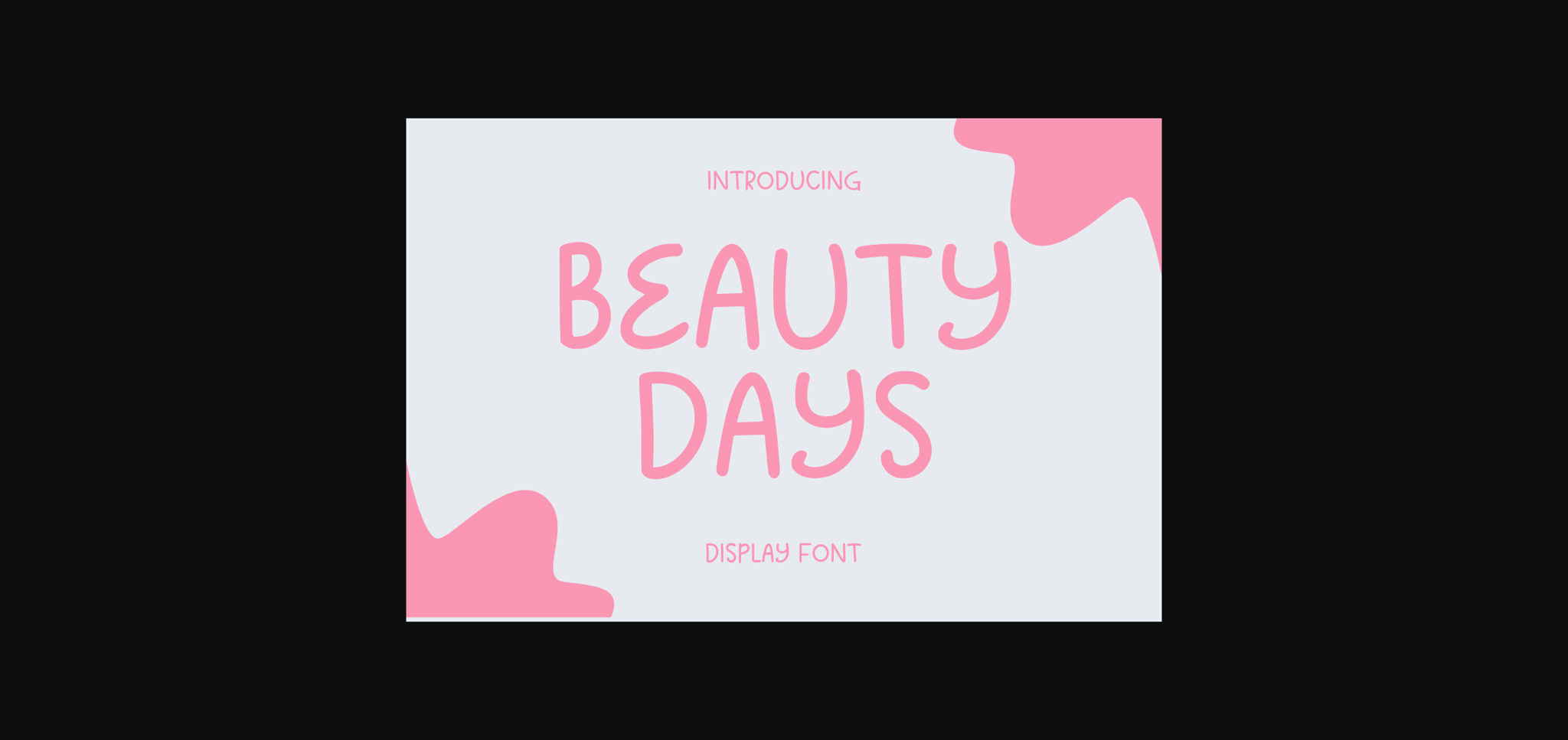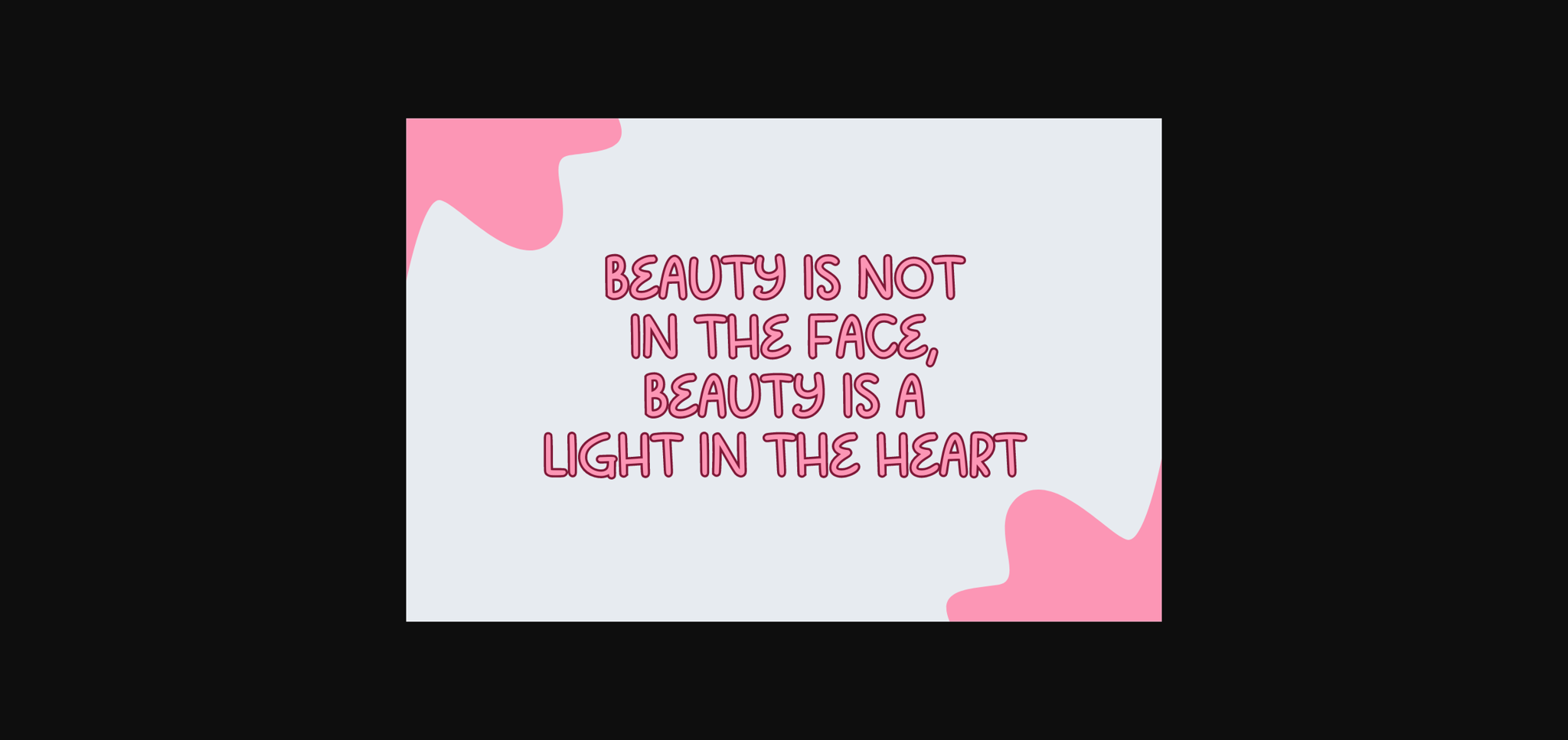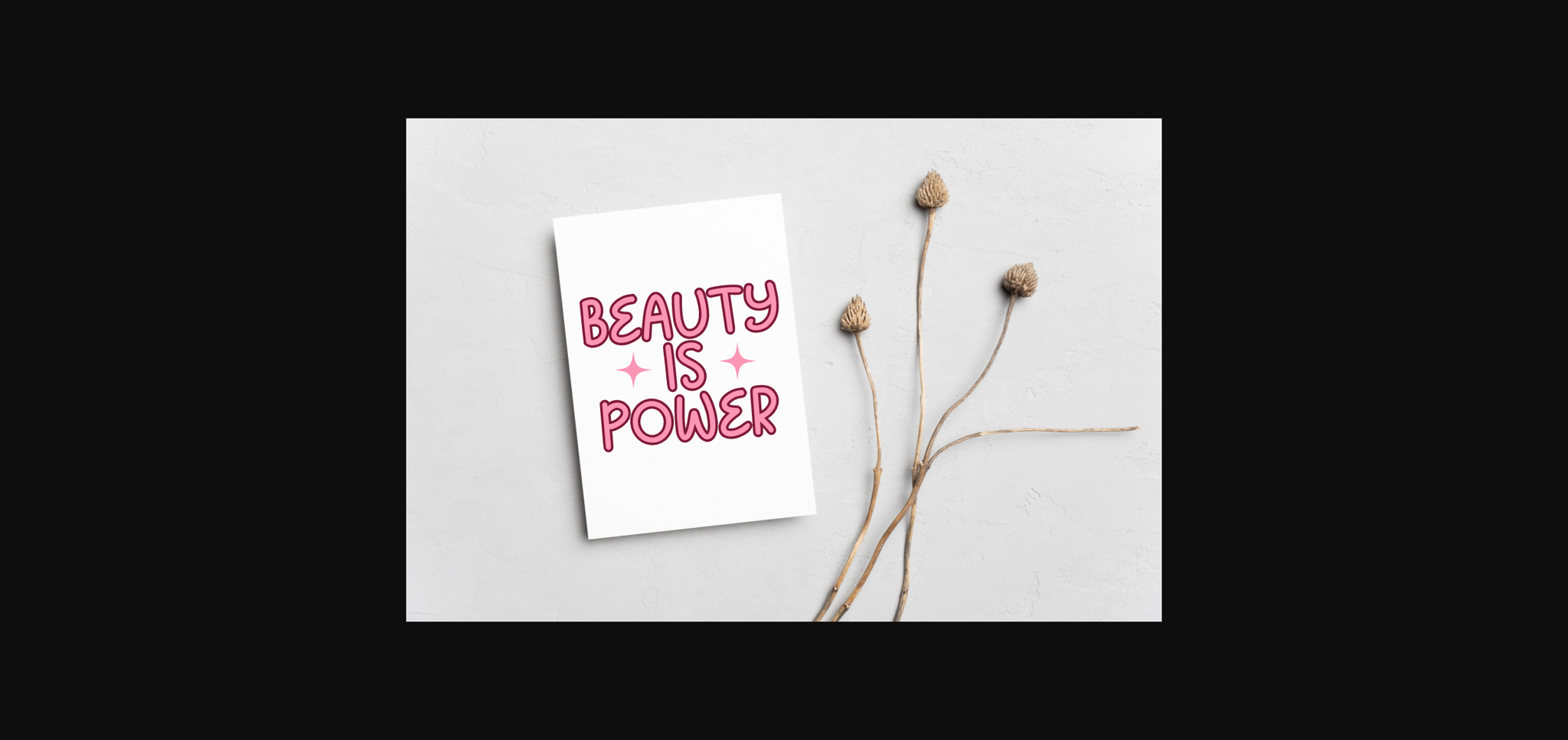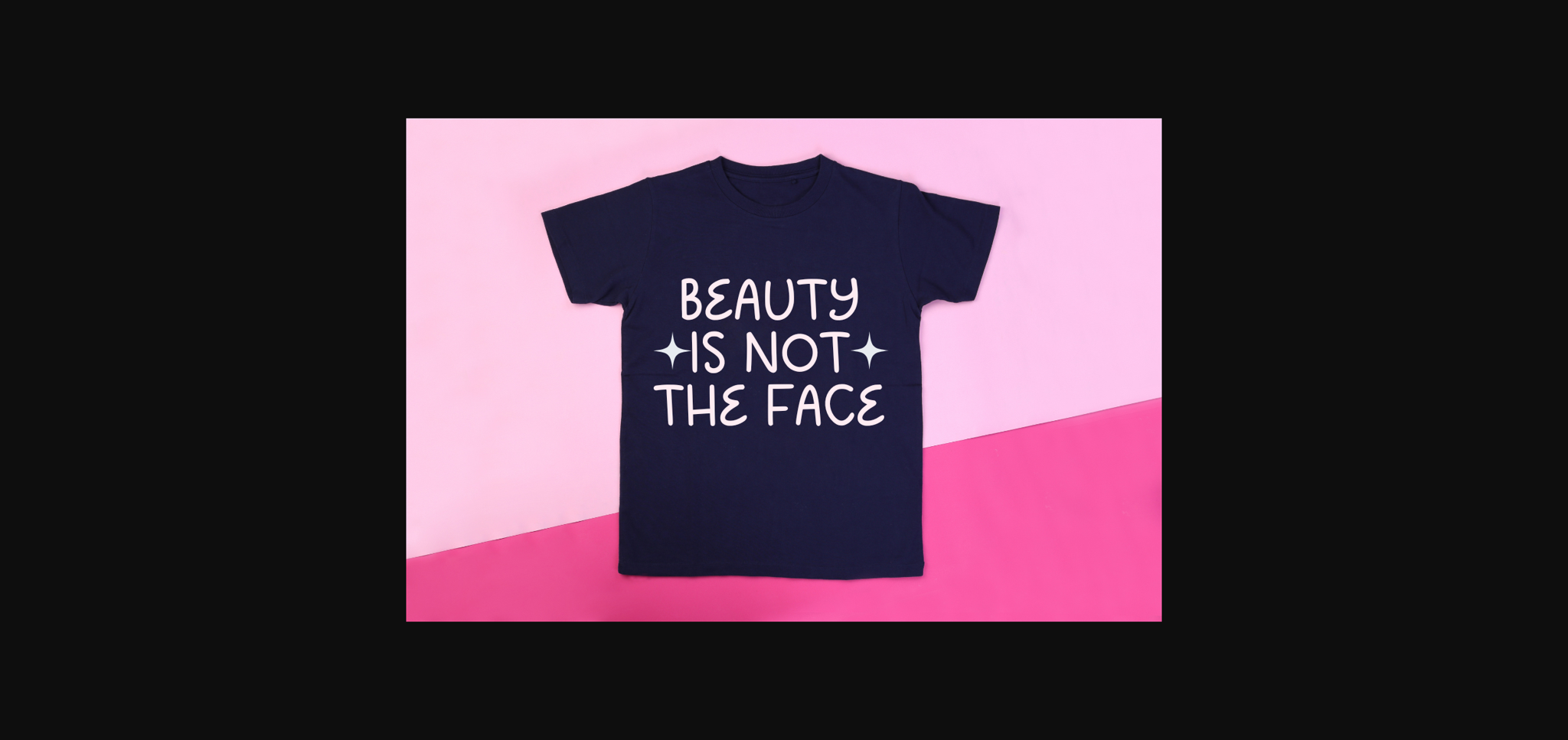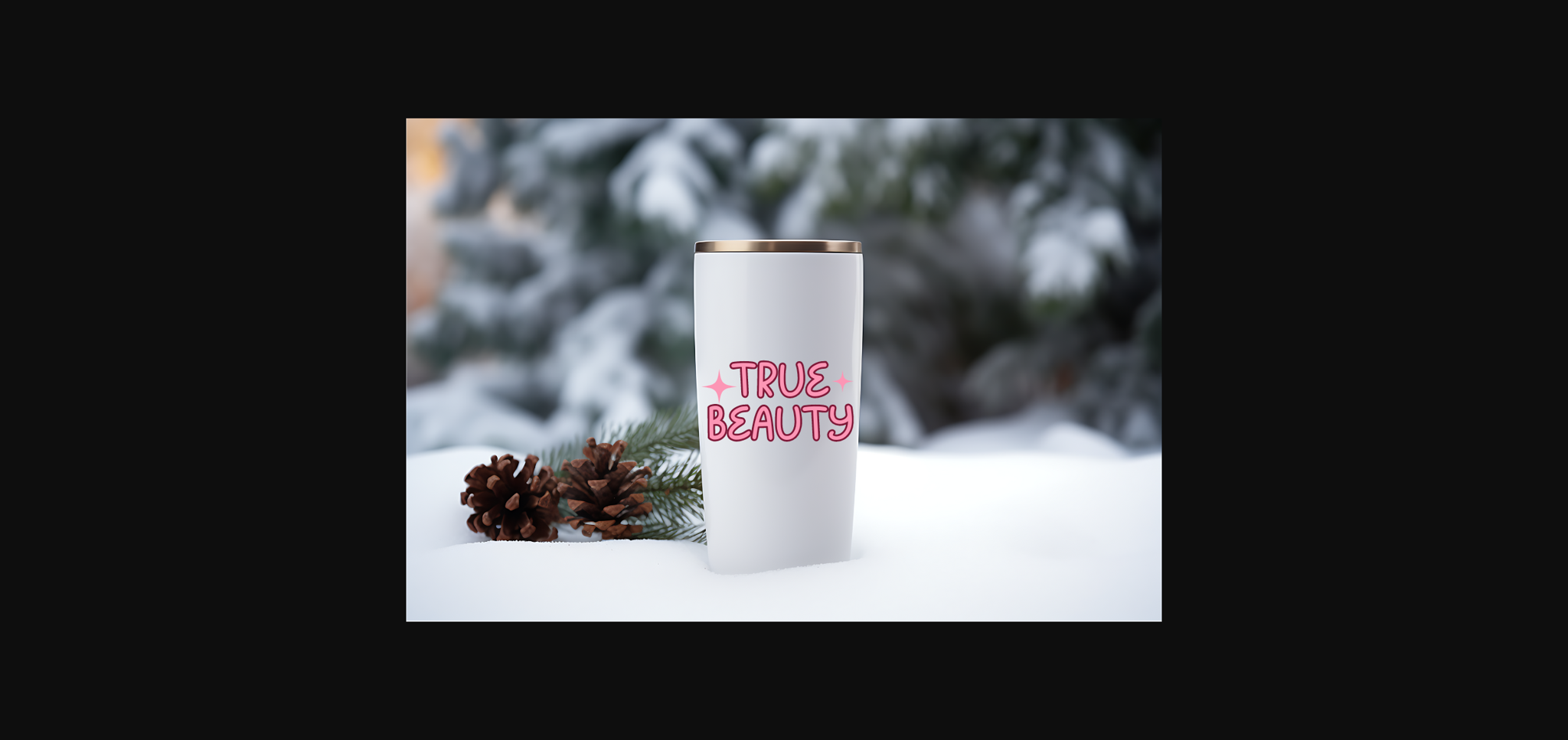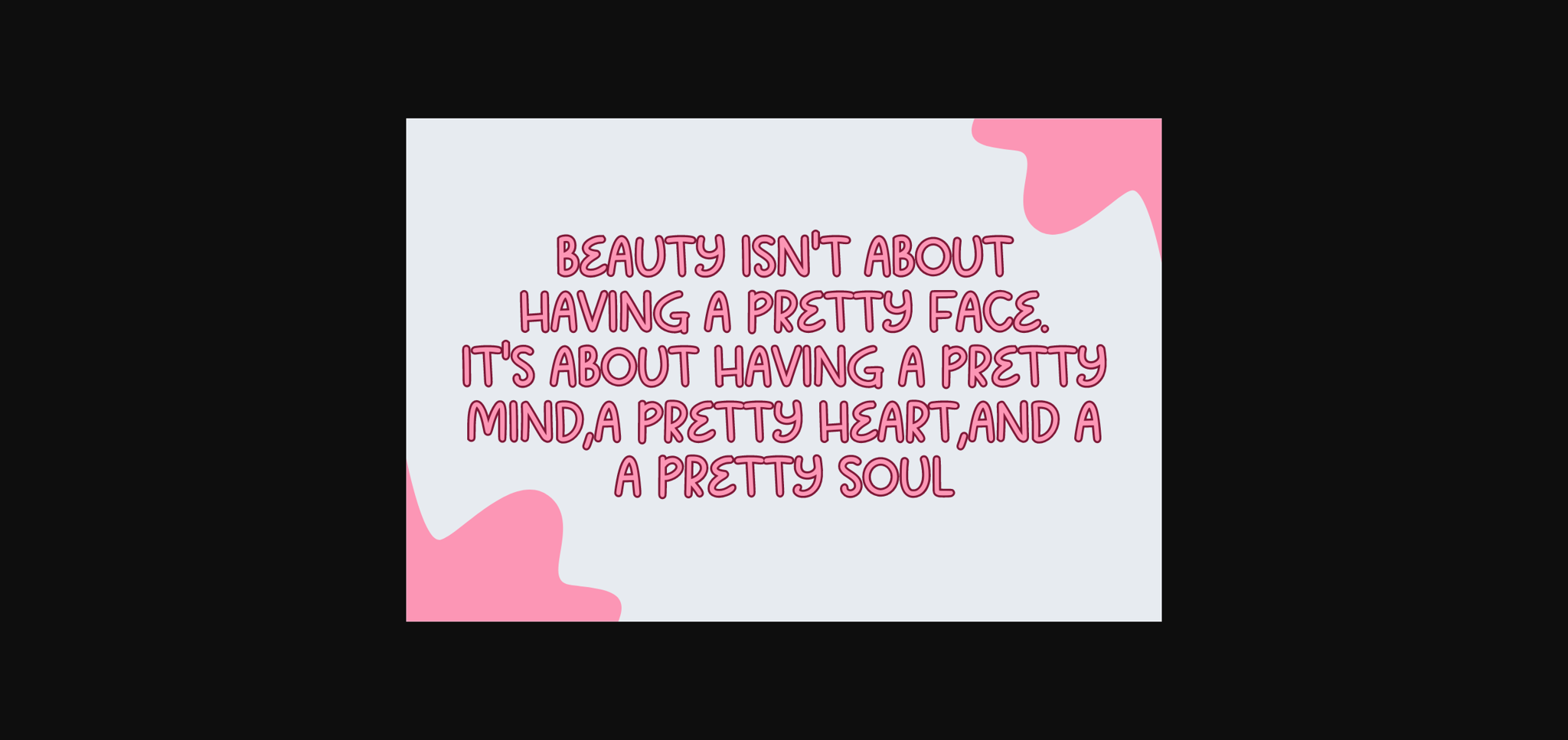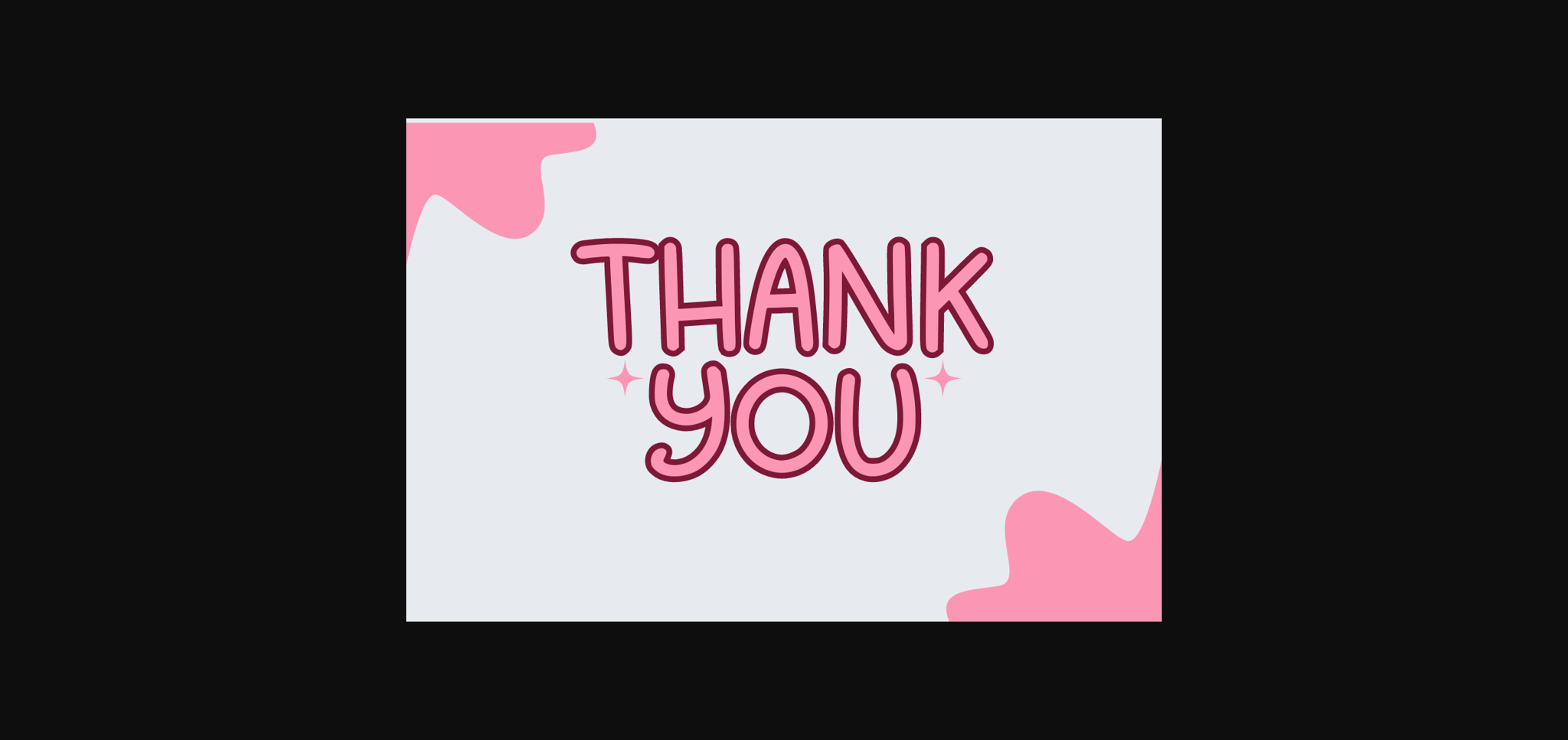
Beauty Days Font
About Beauty Days Font
Beauty Days is a cute and playful sans-serif font. Whatever the topic, this font is perfect for your creative craft needs!